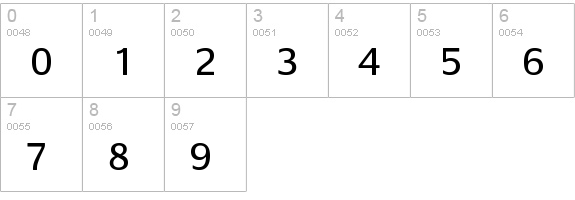
PraxisEF-Regular is the standard, neutral variant in the PraxisEF typeface family \xE2\x80\x94 well suited to general body text, paragraphs, and standard typographic work.
PraxisEF-Regular is a versatile and modern font that exudes professionalism and sophistication. With its clean lines and balanced proportions, this typeface is perfect for a wide range of design projects, from branding to editorial layouts. The PraxisEF-Regular font offers a sleek and contemporary look that will elevate any design it is used in. What sets PraxisEF-Regular apart is that it is not only beautifully crafted but also freely available for download at FontsMarket.com. This means that designers and creatives can easily access this high-quality font without any cost, making it a valuable resource for all types of projects. Whether you're working on a website, a poster, or a logo, PraxisEF-Regular provides a polished and professional touch that will make your designs stand out. Experience the elegance and versatility of PraxisEF-Regular today by downloading it for free at FontsMarket.com. Elevate your design projects with this stylish and contemporary font that is sure to make a lasting impression.